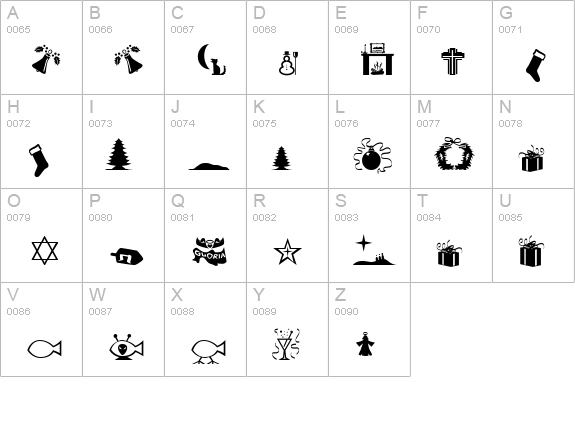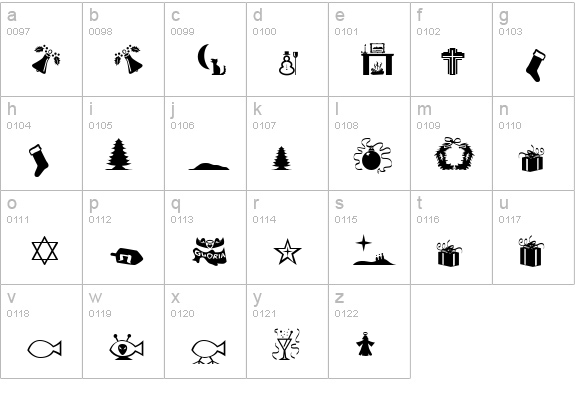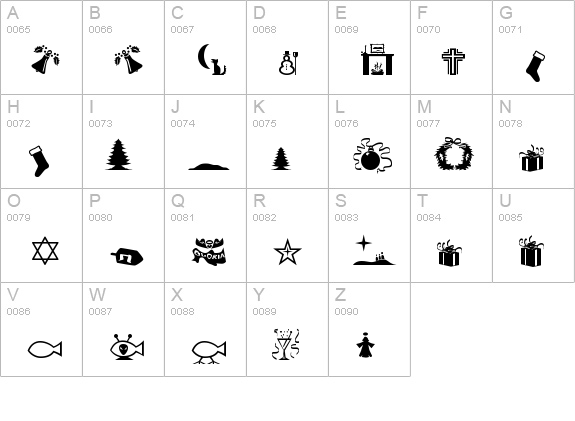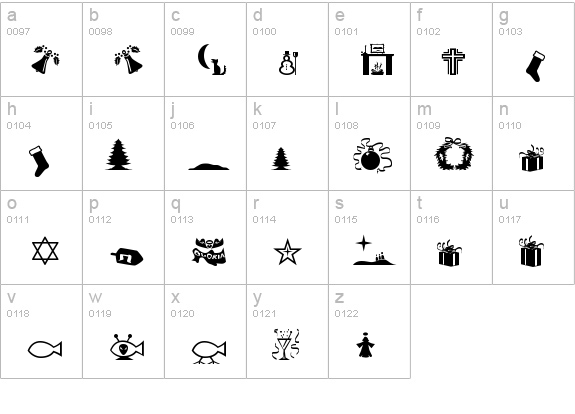
Xmas 97 font is a festive and whimsical typeface that exudes holiday cheer and nostalgia. With its playful and ornate design, this font is perfect for creating Christmas-themed graphics, cards, and decorations. The intricate details and decorative elements of Xmas 97 font will add a touch of magic to any project. Best of all, Xmas 97 font is available for free download at FontsMarket.com. This means you can easily access this charming font and use it in your designs without any cost. Spread joy and merriment this holiday season with Xmas 97 font, the perfect addition to your festive creations. Download now and let your creativity shine!